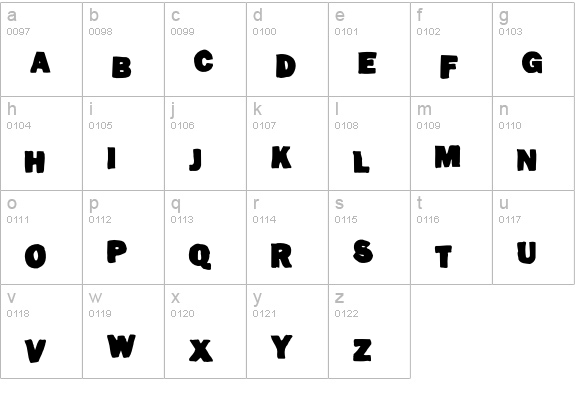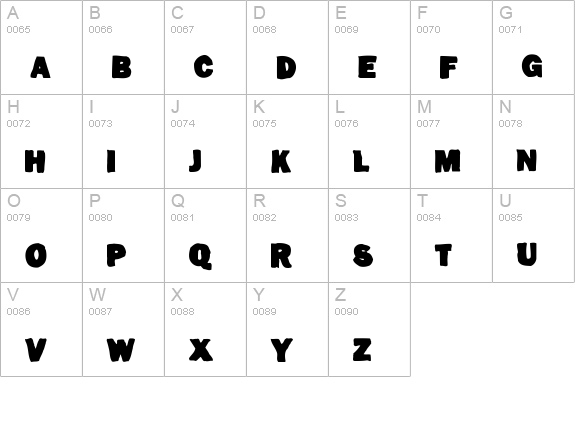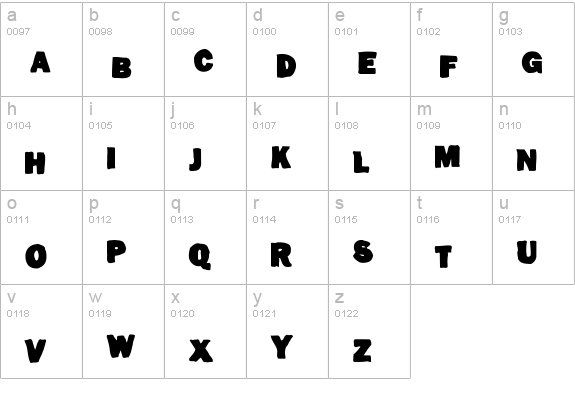
SantoDomingo-DeManteca Font Details
SantoDomingo-DeManteca is a visually stunning font that exudes elegance and sophistication. Its unique design embodies the perfect balance between classic and modern typography, making it an ideal choice for a wide range of creative projects. The beautifully crafted letterforms of SantoDomingo-DeManteca capture attention and leave a lasting impression. This font boasts a seamless blend of smooth curves and sharp edges, creating a harmonious aesthetic that is both eye-catching and legible. Each character is meticulously designed to ensure readability at any size, making it suitable for various applications, from large-scale signage to delicate invitations. One of the most remarkable features of SantoDomingo-DeManteca is that it is freely available to download at FontsMarket.com. This means that designers, artists, and enthusiasts alike can access this extraordinary font without any cost. The accessibility of SantoDomingo-DeManteca allows for endless possibilities and unrestricted creativity, empowering users to bring their visions to life without constraints. Whether you're designing a logo, crafting a brand identity, or creating stunning visuals for print or digital media, SantoDomingo-DeManteca is a font that will elevate your work to new heights. Its versatility and timeless beauty make it a valuable addition to any designer's toolkit. Don't miss out on the opportunity to enhance your projects with the captivating charm of SantoDomingo-DeManteca. Download this exceptional font for free at FontsMarket.com and unlock a world of creative possibilities.